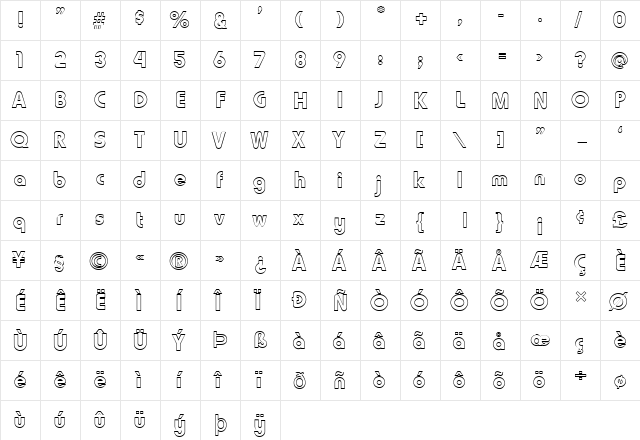
FZ BASIC 7 HOLLOW Normal
Design Context for FZ BASIC 7 HOLLOW Typeface
FZ BASIC 7 HOLLOW takes a measured approach to typography — its balanced proportions and neutral character make it a reliable workhorse for both digital and print work.